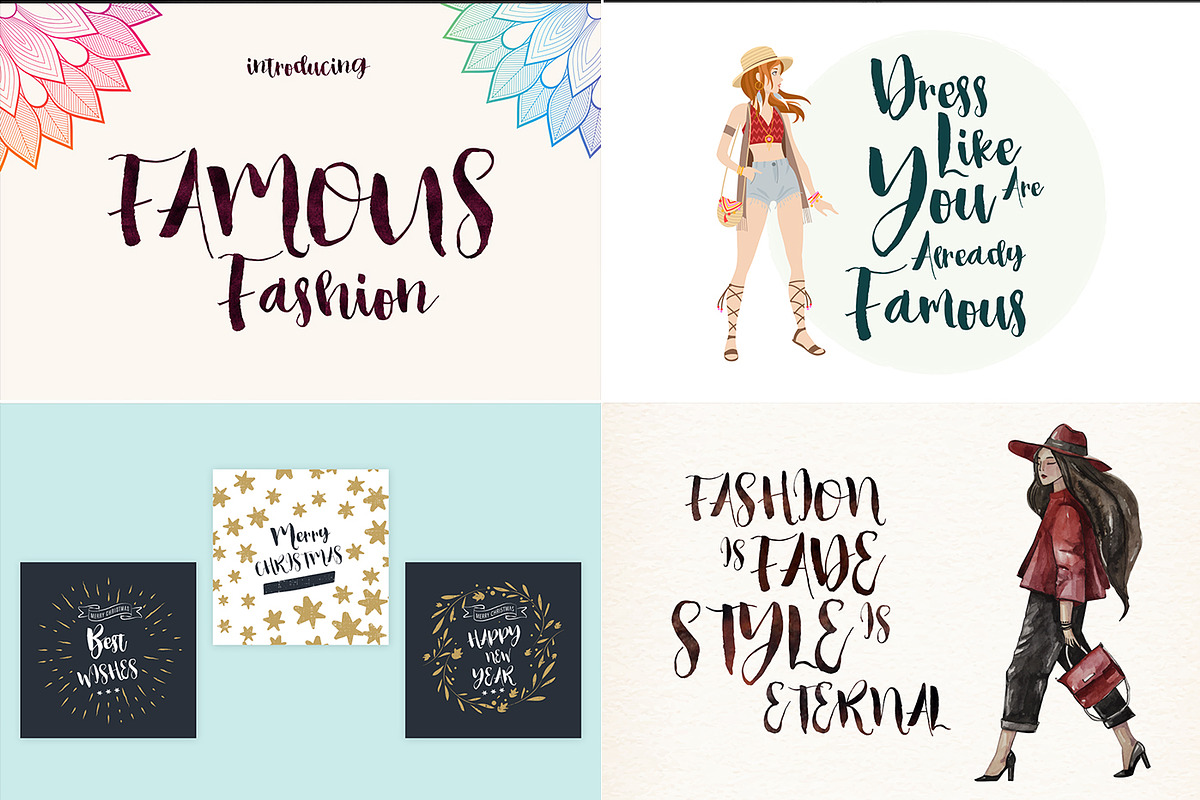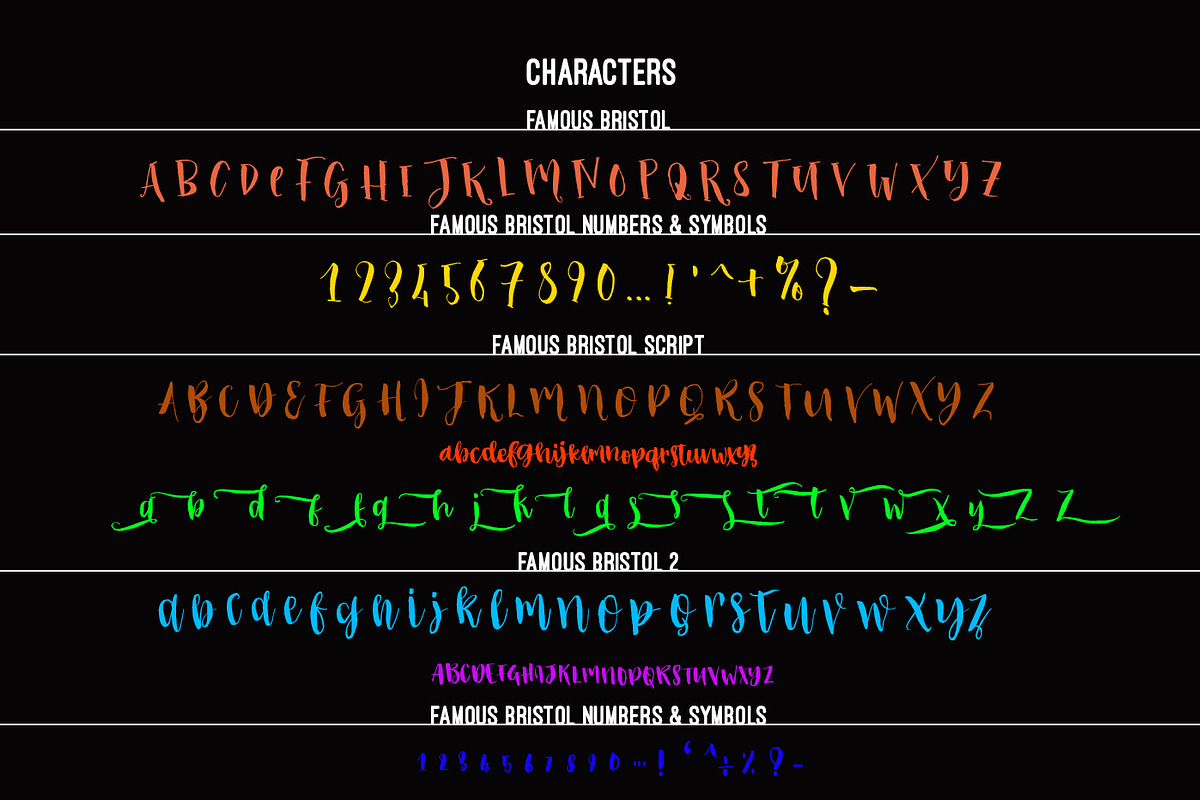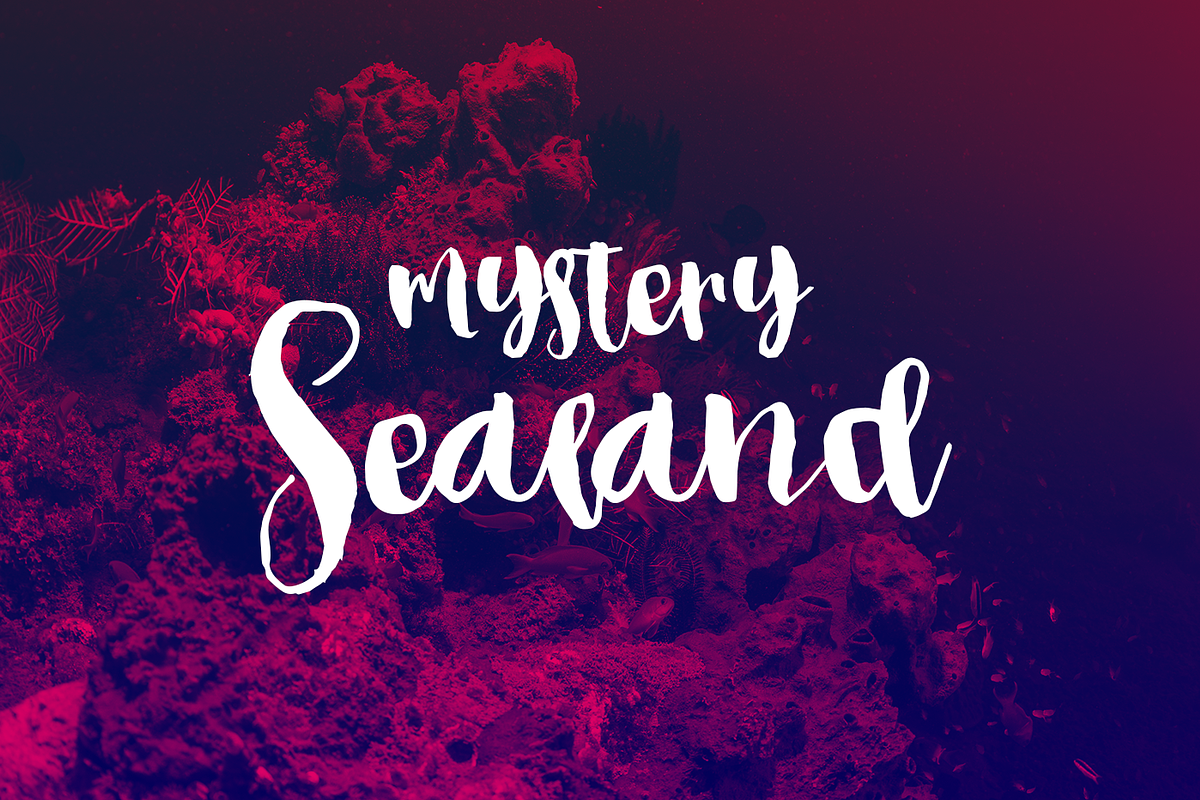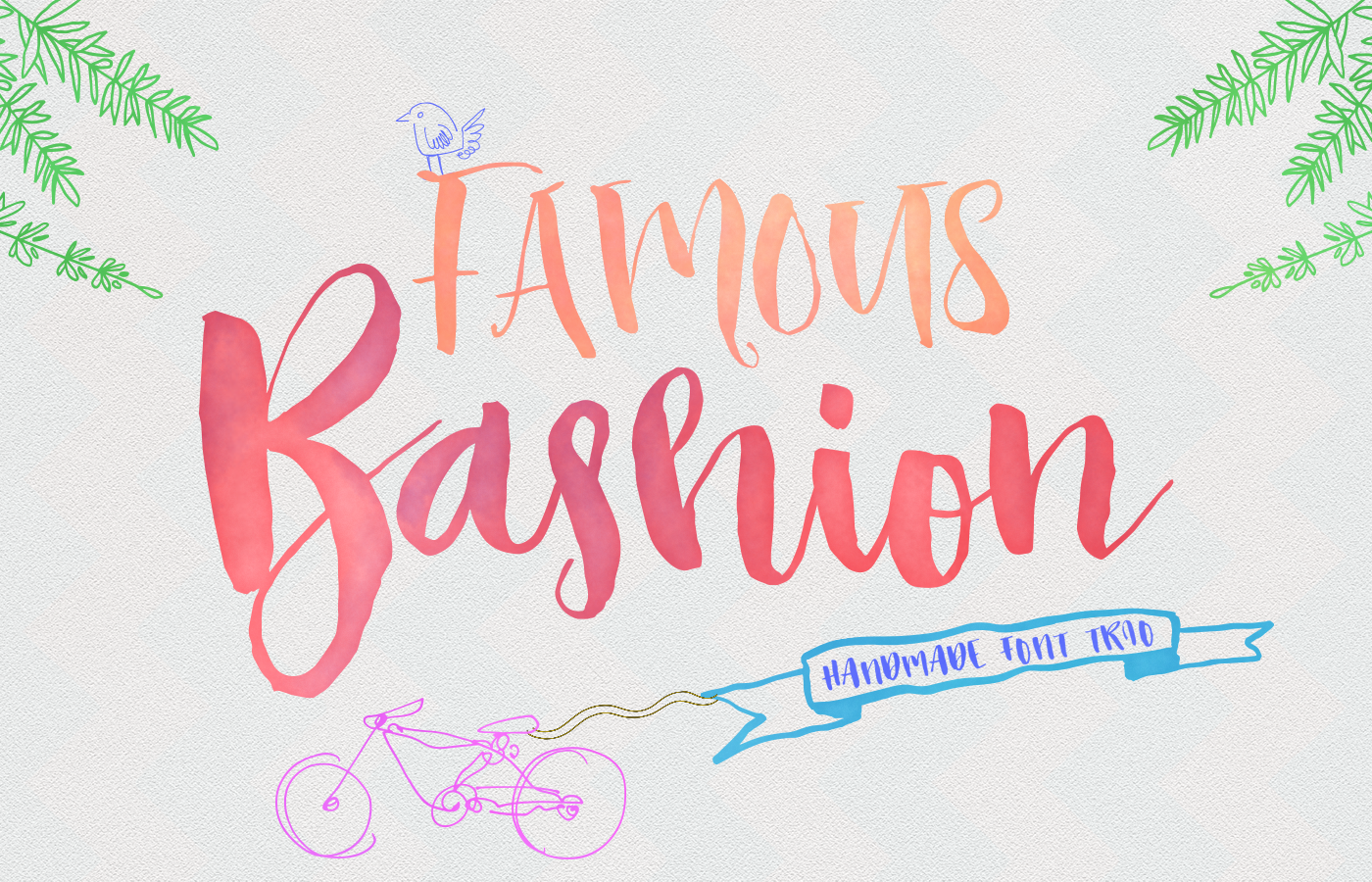
Famous Bristol 3 Font
Famous Bristol Font Family And Extras
Characteristic company logosBlog pages Logo of brands Projects you need to utilize a premium font The projects that require a font including lots of alternates.Letters contain marker fading and italic state is made normal also naturalness draws attention
Famous Bristol Alternate Characters.